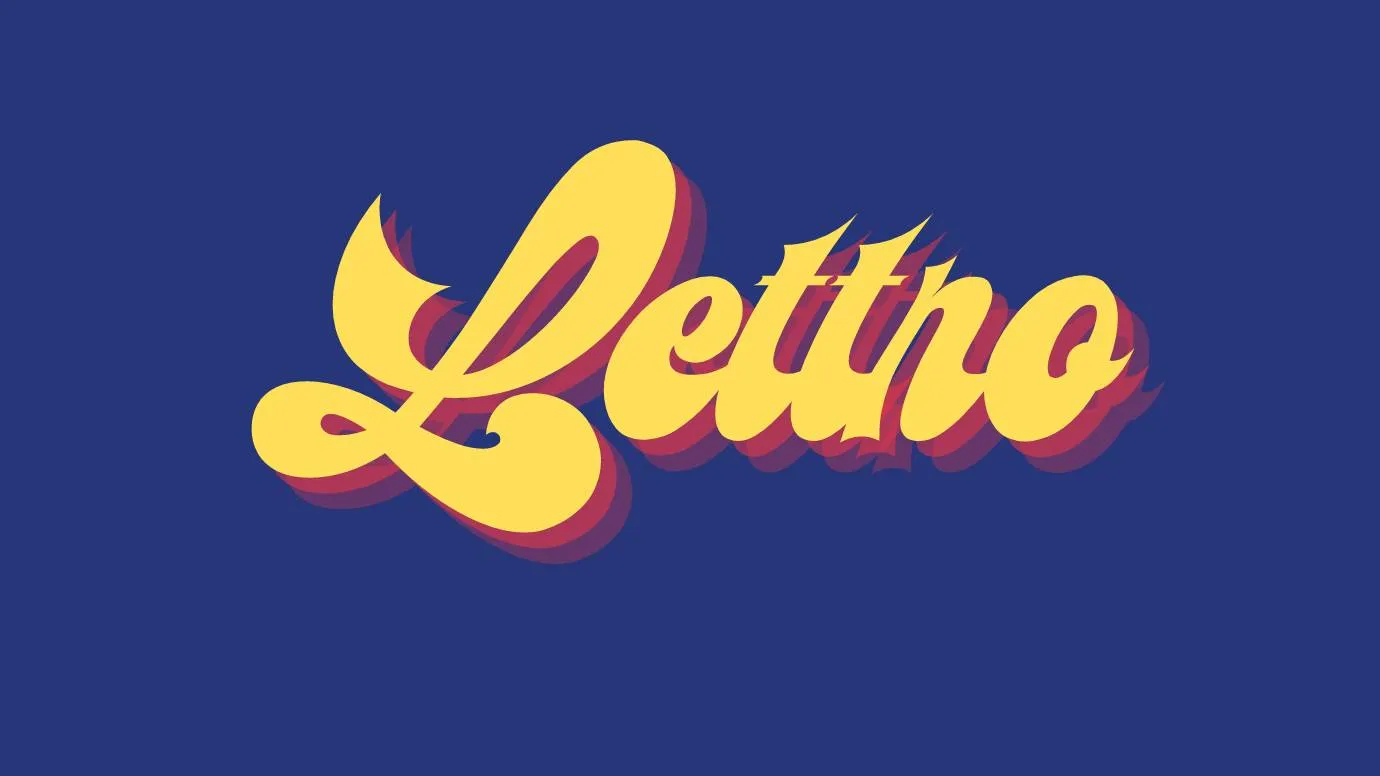
Lettro Font Family
Lettro Font Family belongs to the category of bold script type font. Ardana Creative is the main developer and designed this typeface with stylish swashes and classic ligatures.
This family contains five different and attractive fonts that make it impressive. Gabelisa Font is similar to this font in multiple terms. This retro design font is available in both OTF and TTF file structures and is attainable free in its demo version.
Lettro Font